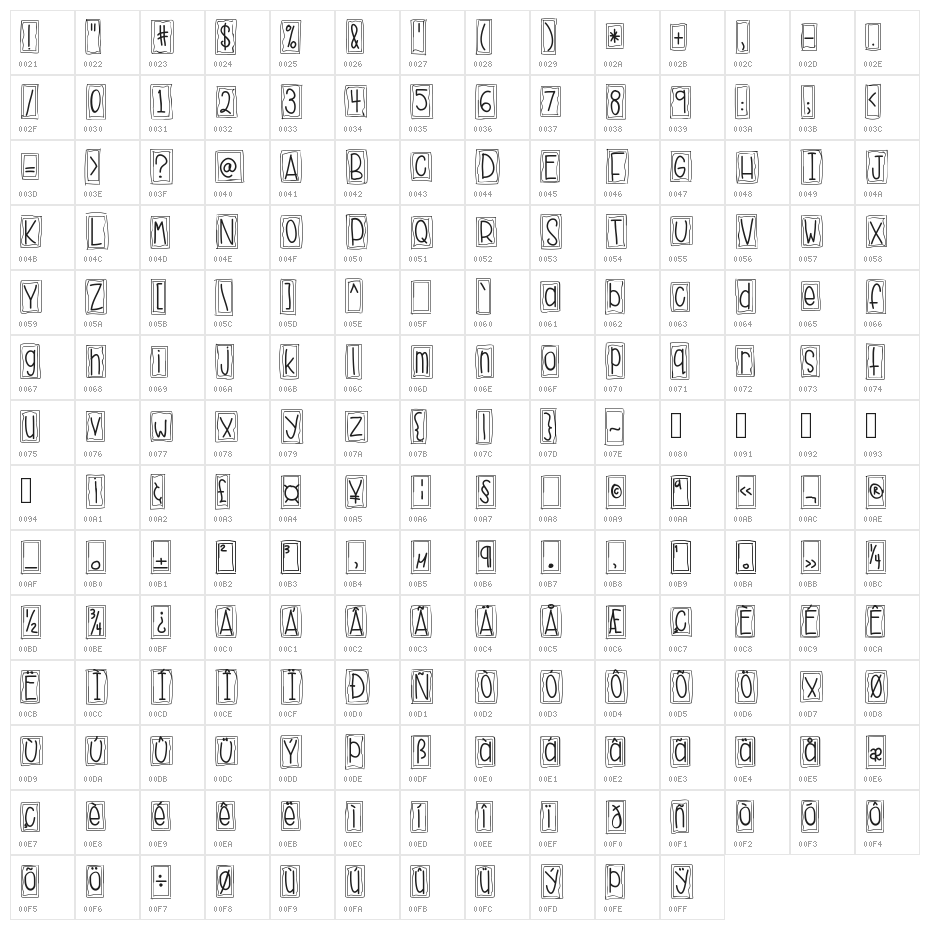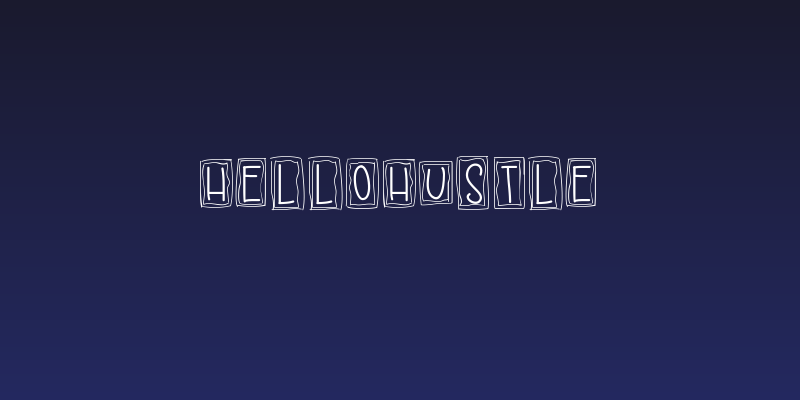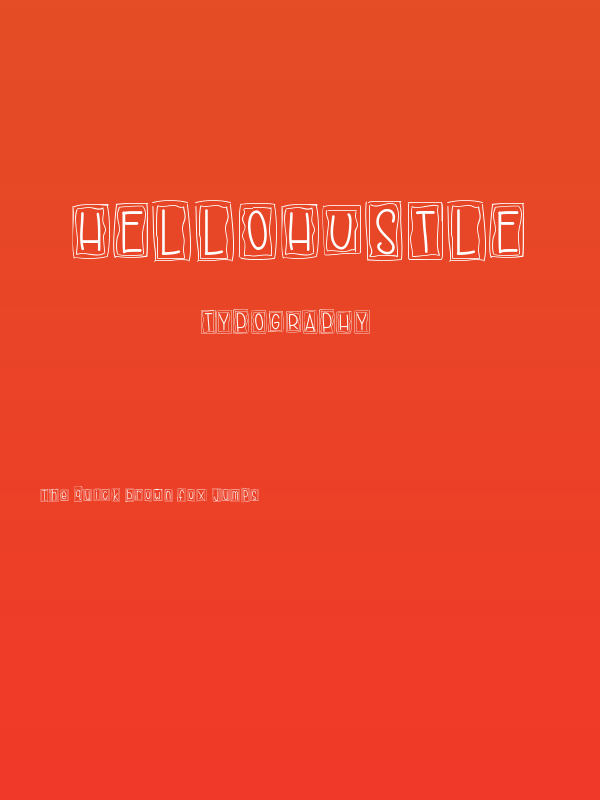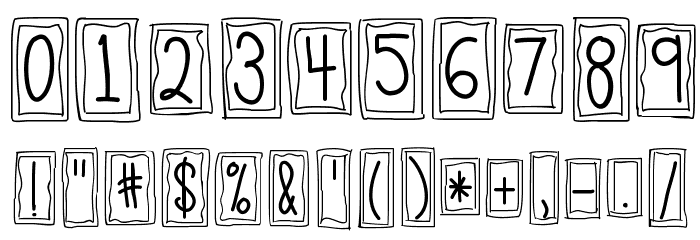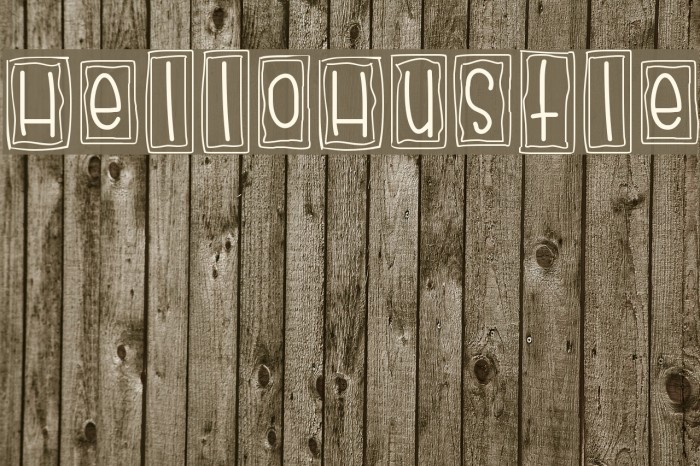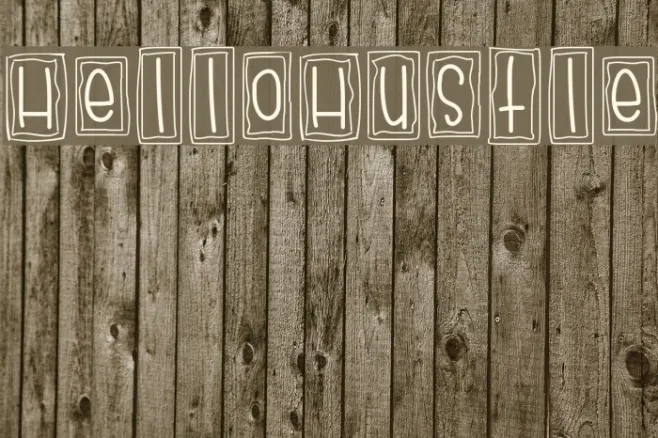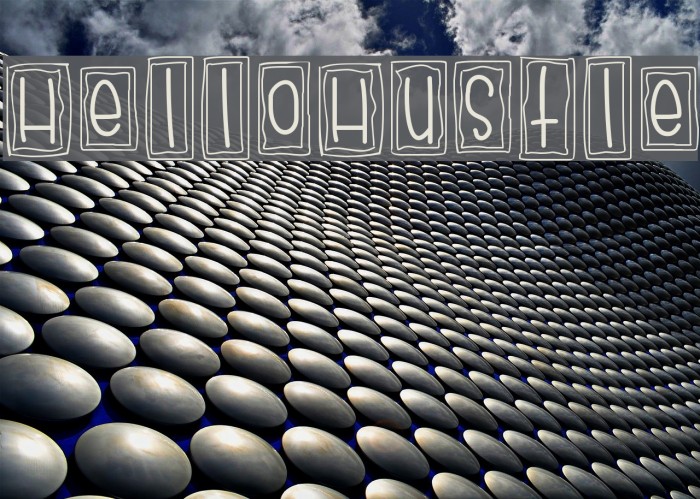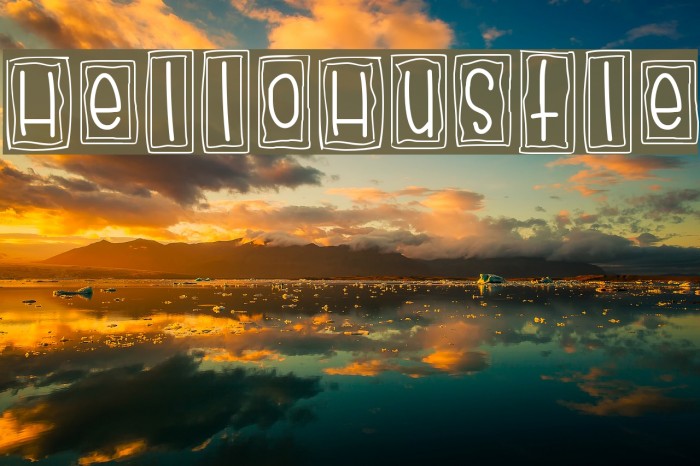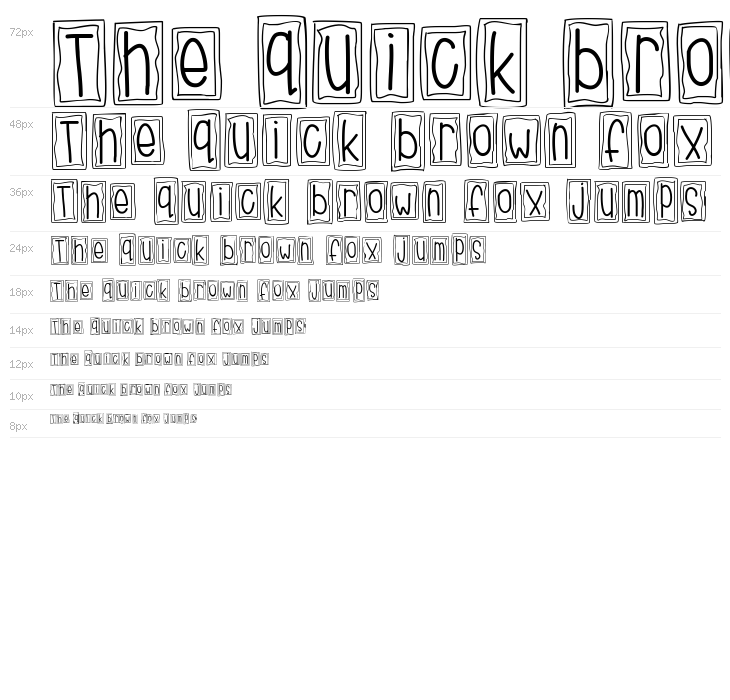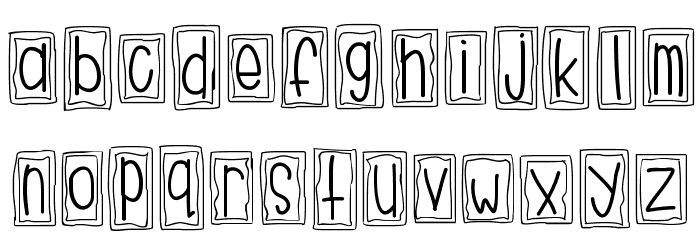
HelloHustle Font
HelloHustle Description
This font features a playful and whimsical design, with each character enclosed in a hand-drawn, irregular box. The letters have a casual, handwritten style, characterized by uneven strokes and a slightly wobbly appearance, giving it a charming, informal look. The uppercase and lowercase letters maintain a consistent style, with a quirky and artistic flair. The numbers and special characters follow the same boxed, hand-drawn aesthetic, making the font cohesive and visually engaging. This font is perfect for projects that require a fun and creative touch, such as children's books, greeting cards, or playful branding materials.
| Overall Style | Whimsical, Playful |
| Proposed Projects | Ideal for children's books, greeting cards, playful branding, and creative projects. |